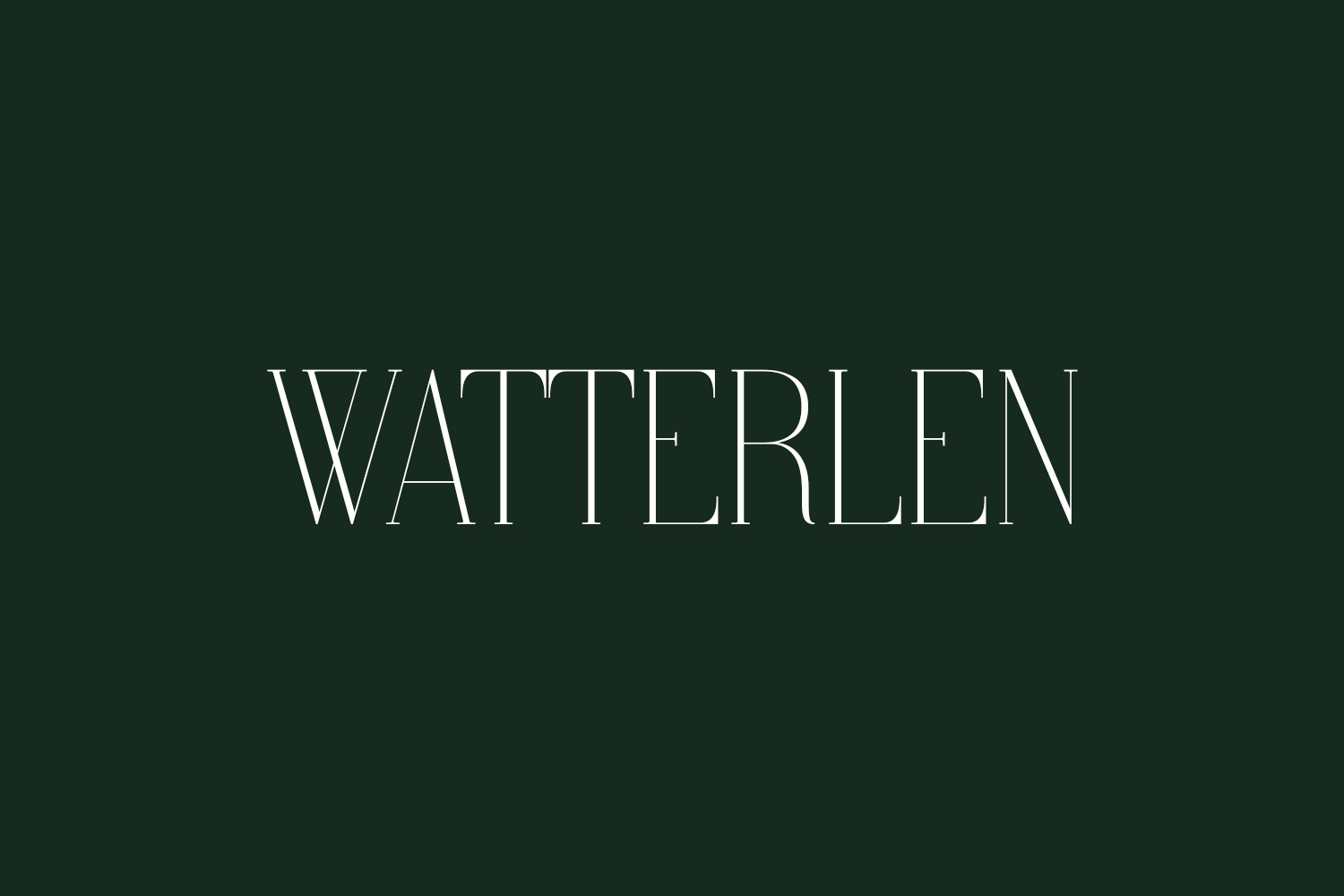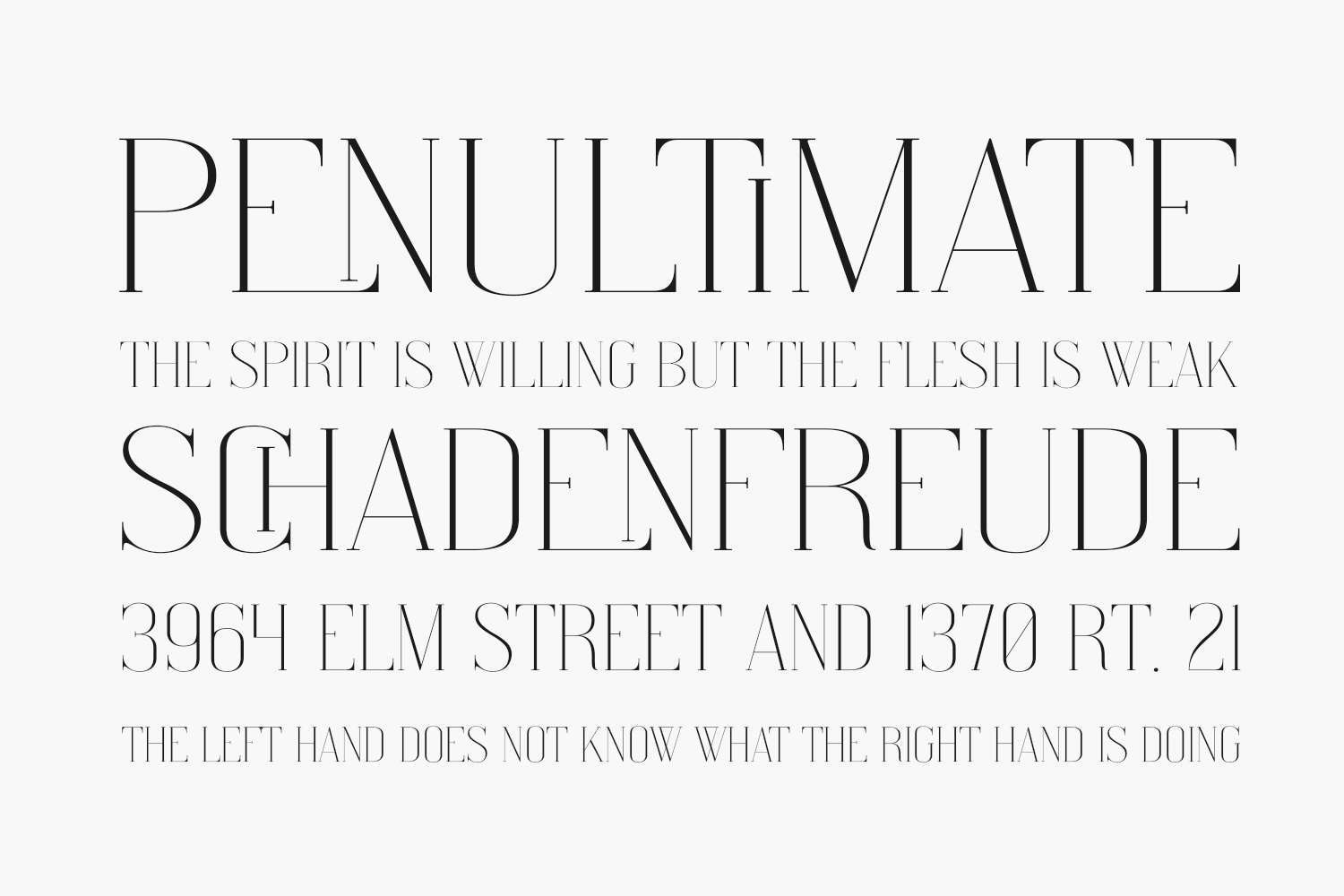
Watterlen Free Font is a thin lettered, elegant and tall serif font. It will add a luxury spark to any design project that you wish to create. Watterlen Free Font was designed by BrandSemut and is free for personal use only. Please purchase the full version for commercial use.